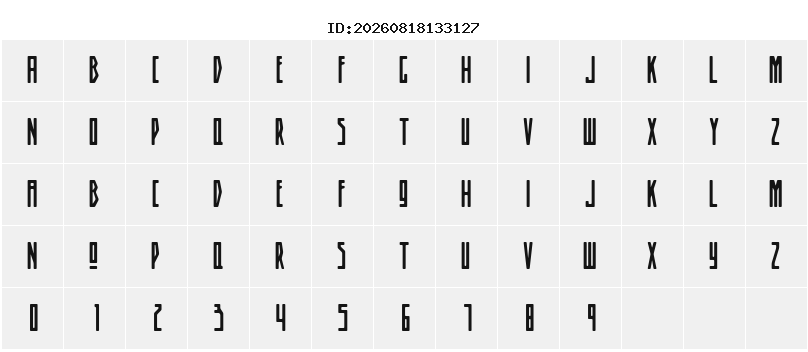
SmithPremier Preview
• Font Name: SmithPremier
• Full Font Name: SmithPremier
About SmithPremier.ttf
SmithPremier.ttf is a modern, elegant sans-serif font designed for ultimate readability and visual harmony. Perfect for branding, headlines, web design, and print materials.